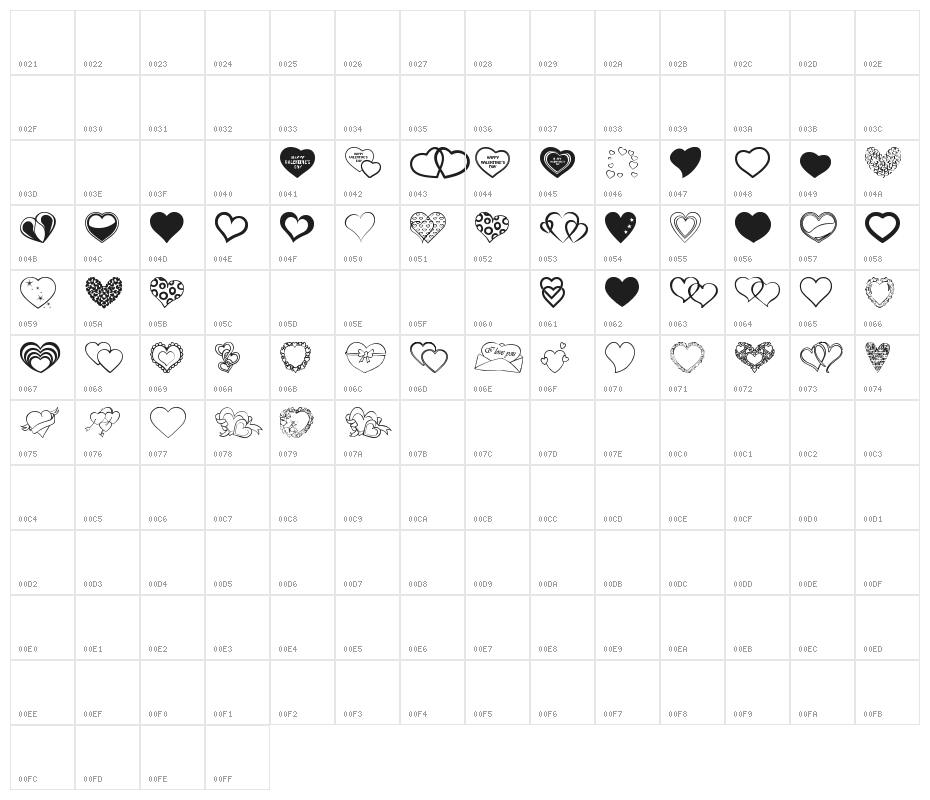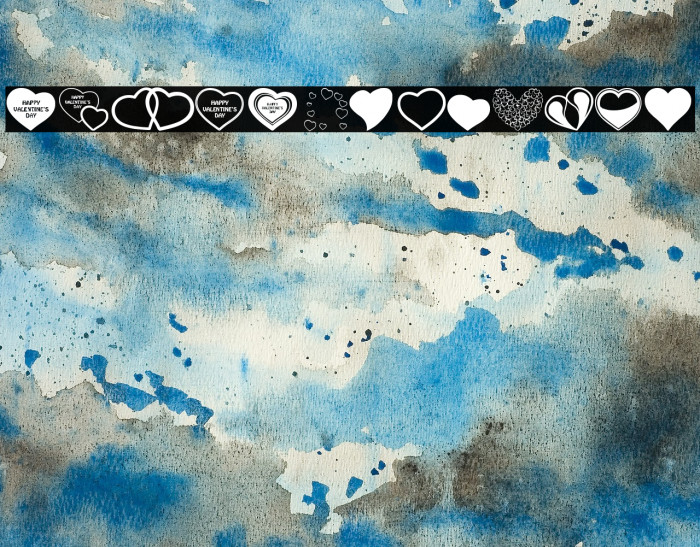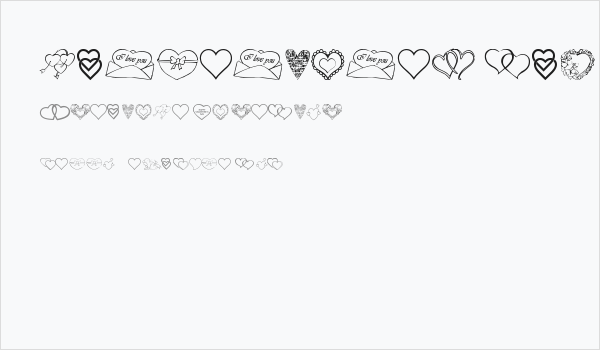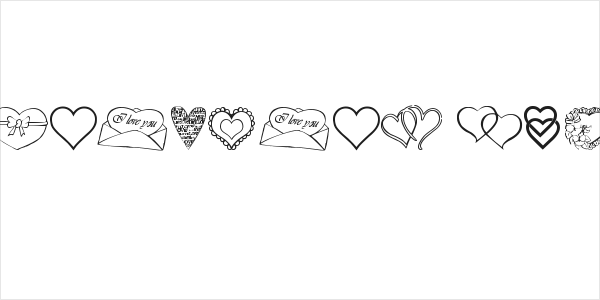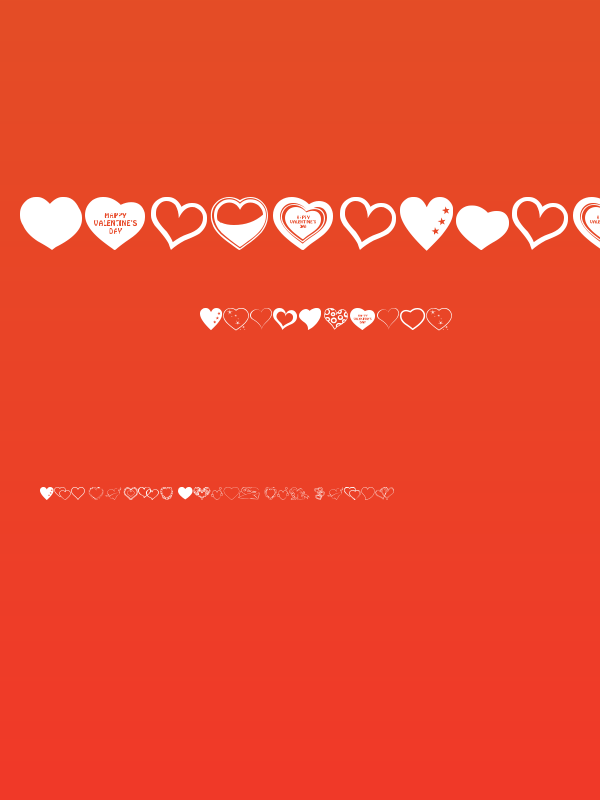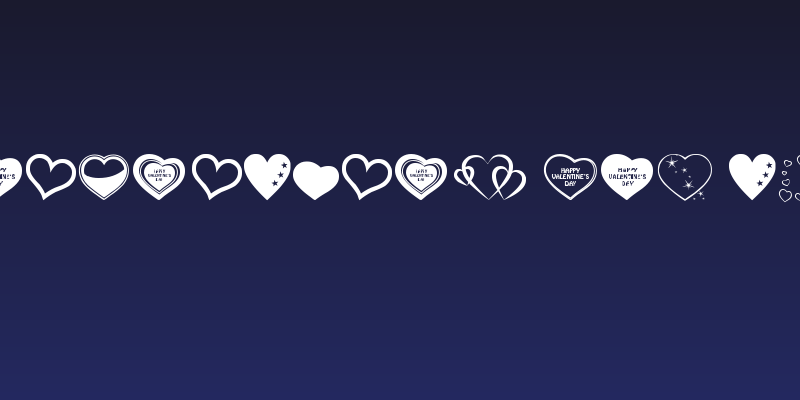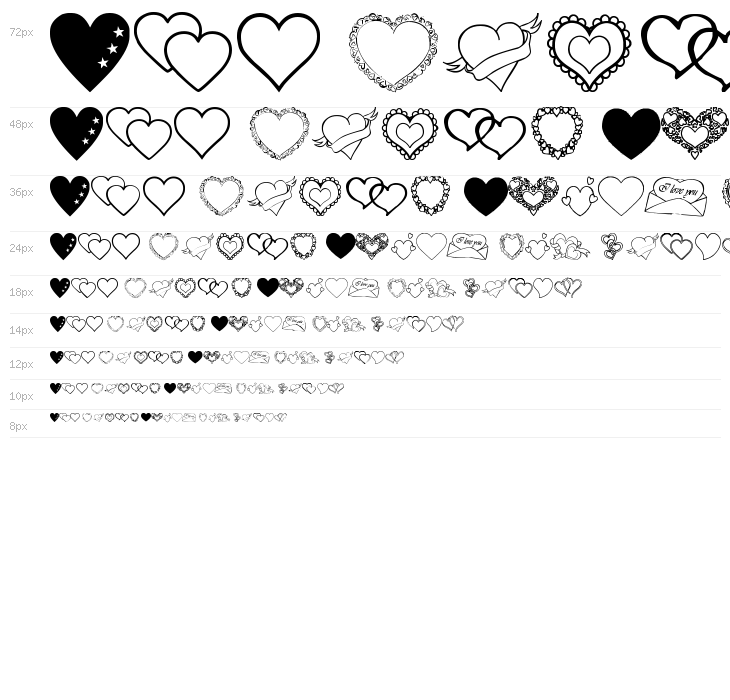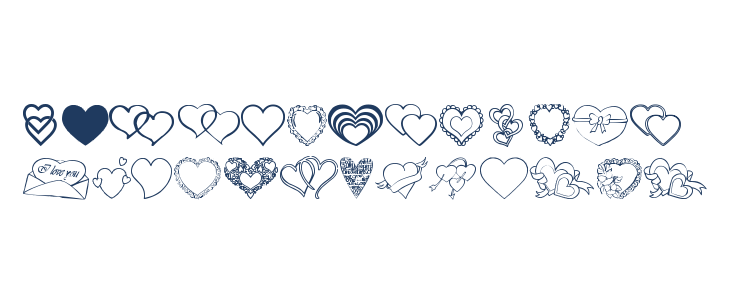
vanlentines day TFB Font
vanlentines day TFB Description
This is a decorative font featuring a variety of heart-themed designs. Each character is represented by a unique heart shape, incorporating elements such as patterns, outlines, and embellishments. Some hearts include text like 'Happy Valentine's Day' or 'I Love You', while others are adorned with stars, flowers, or abstract designs. The font is playful and romantic, ideal for projects that require a whimsical and affectionate touch. The characters are bold and visually striking, making them suitable for attention-grabbing designs.
| Proposed Projects | Ideal for Valentine's Day cards, wedding invitations, love letters, and romantic event posters. |